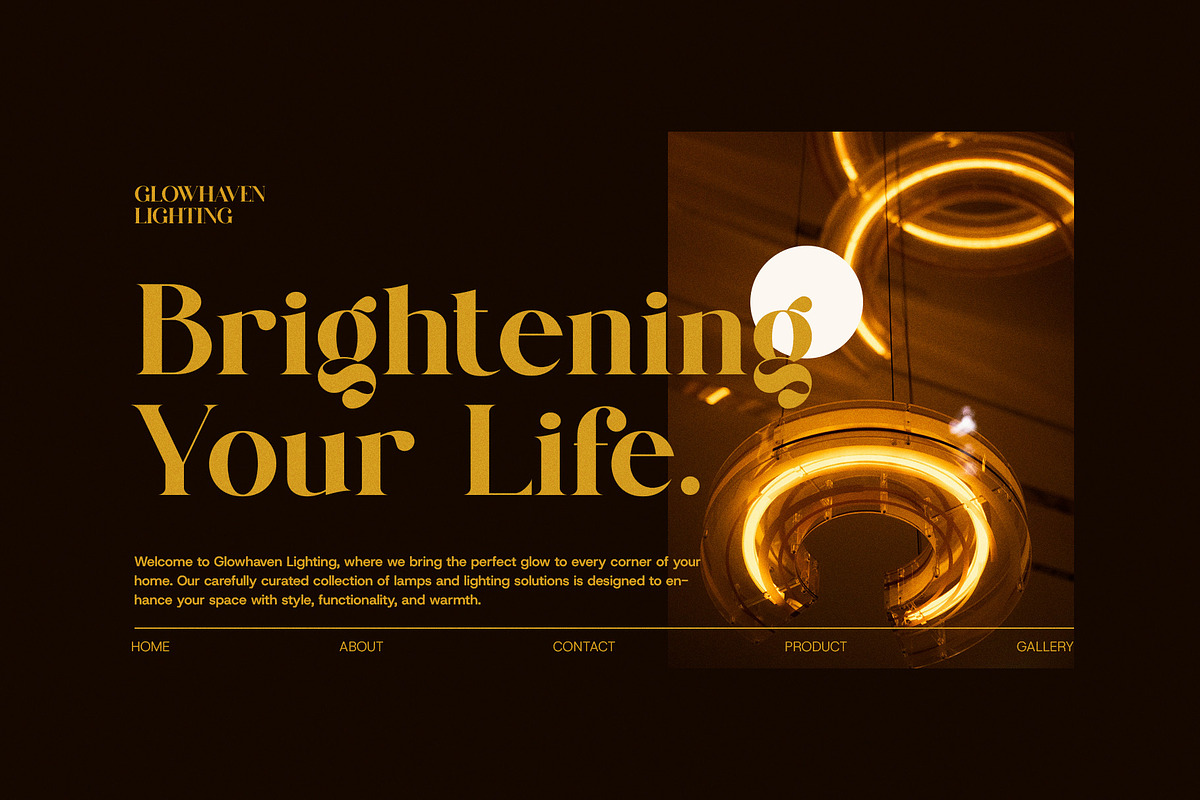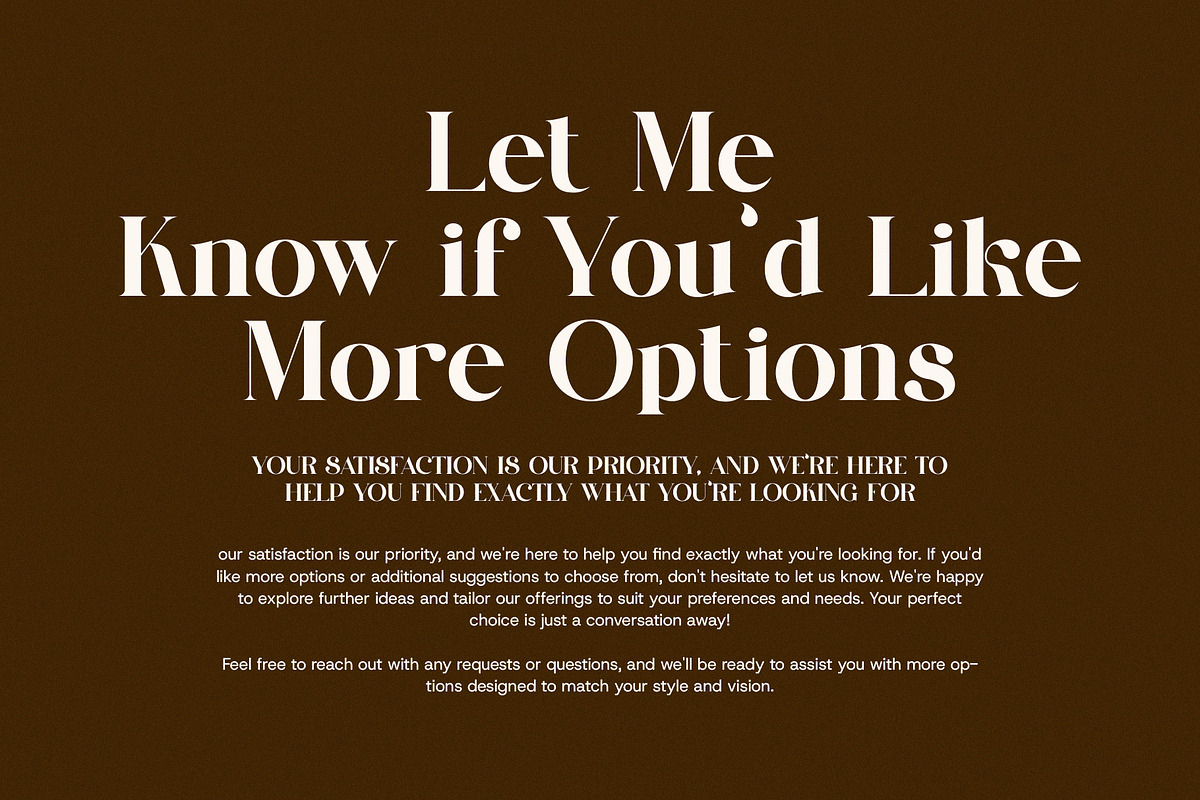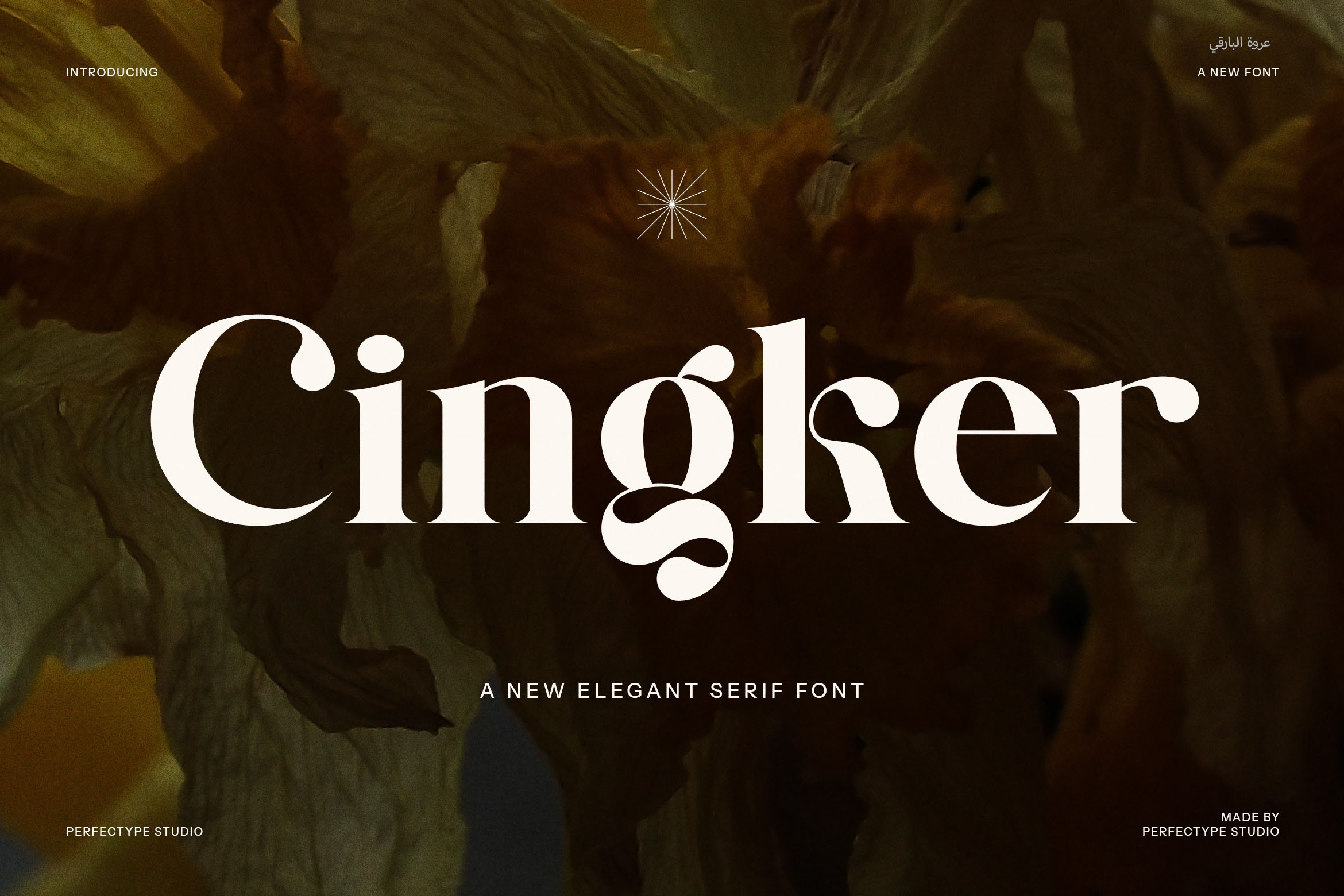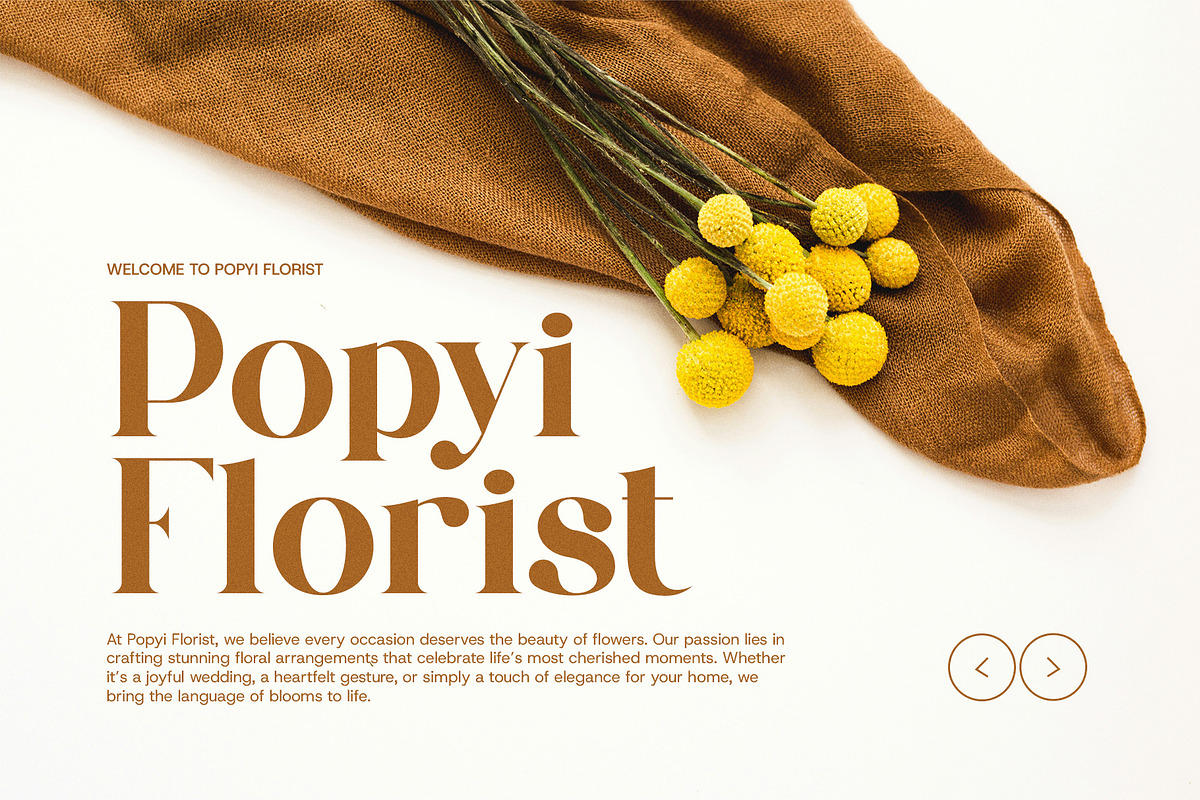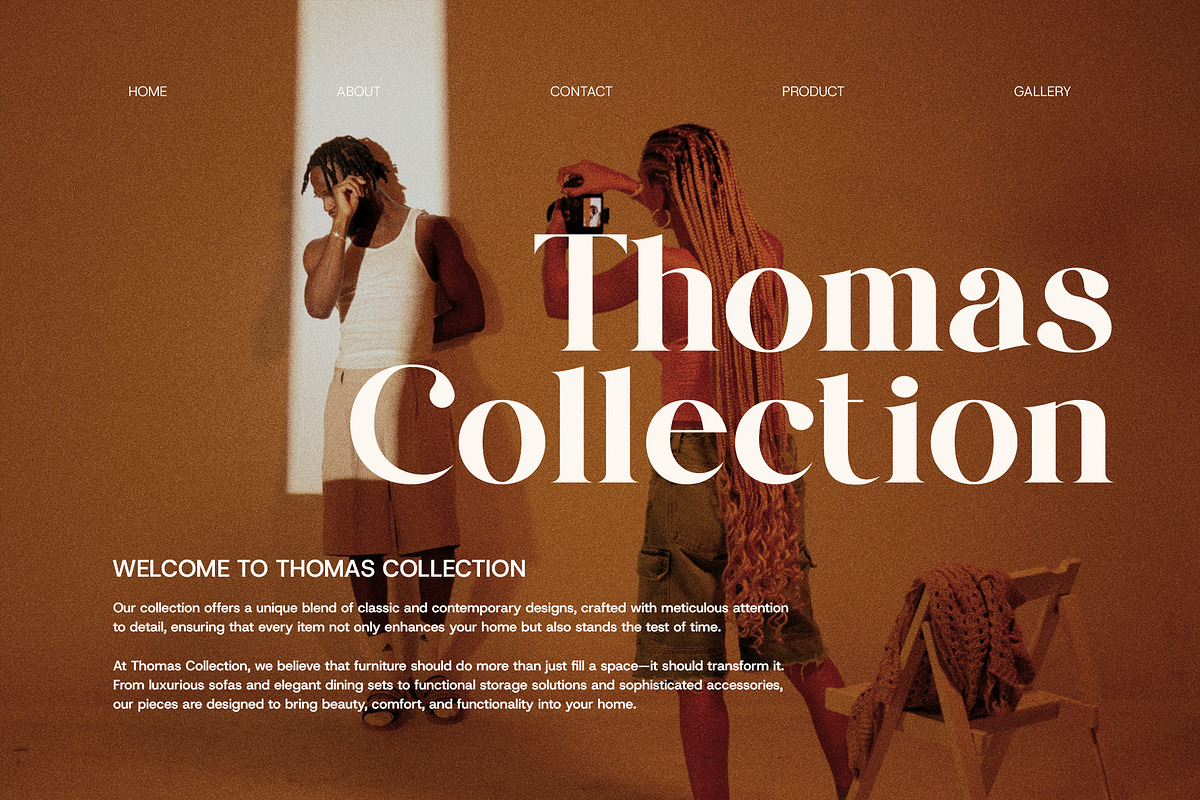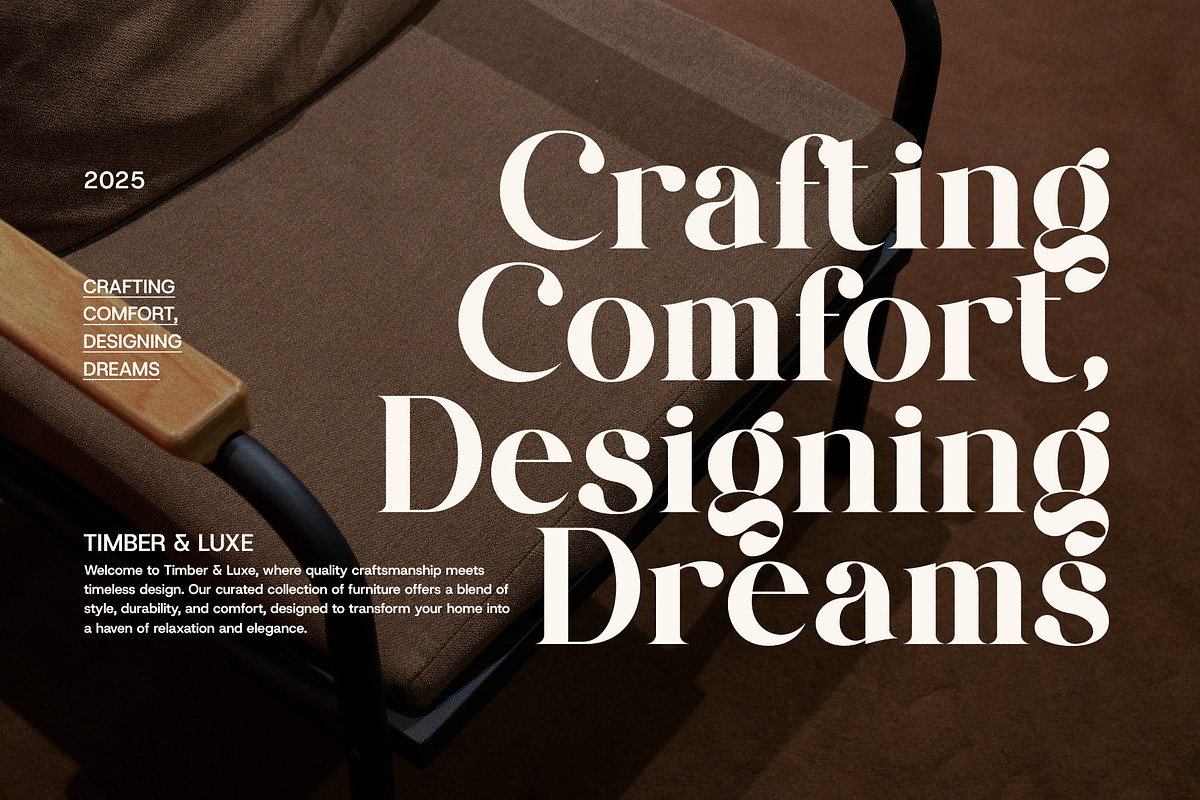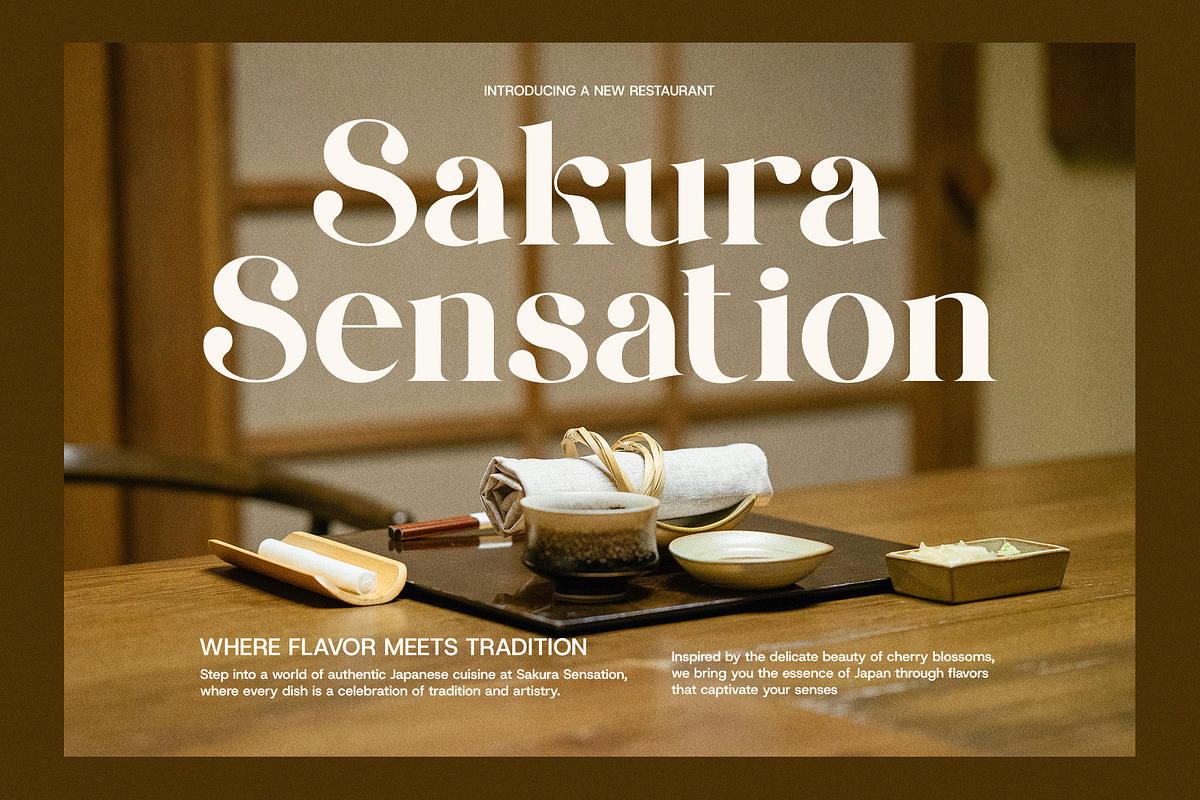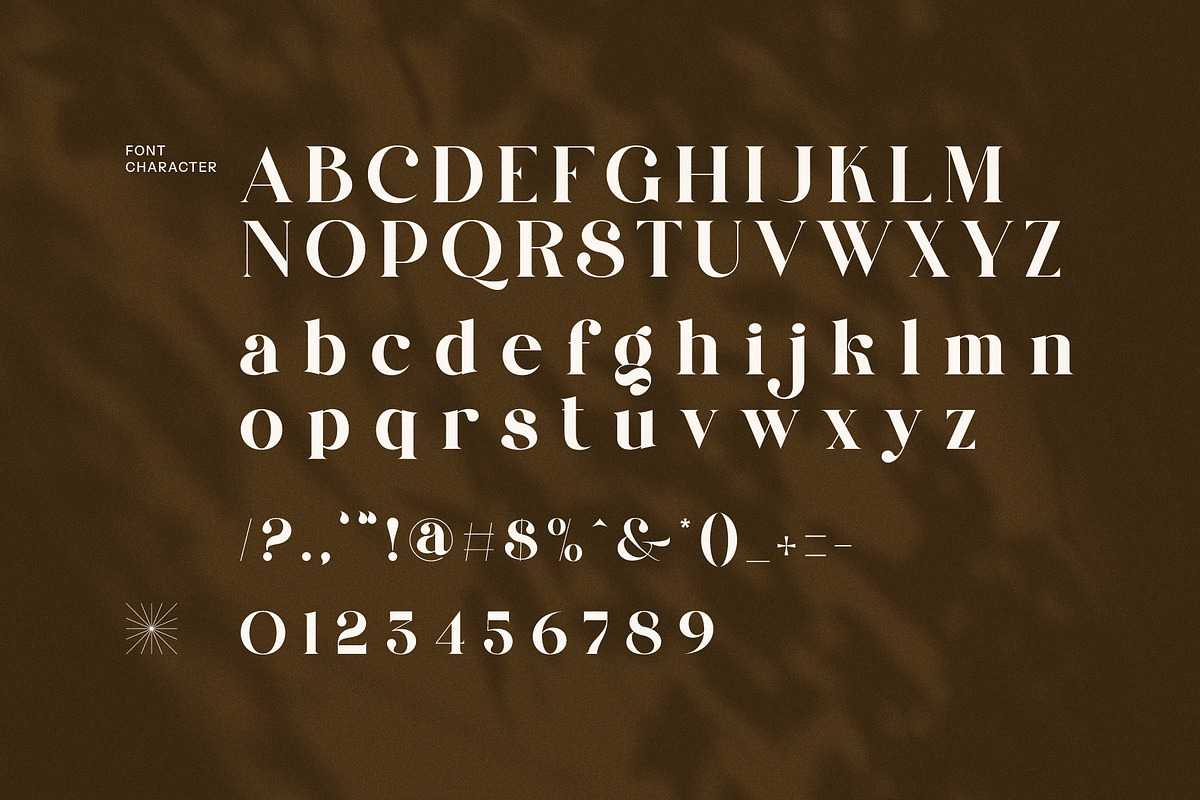
Cingker Modern Display Serif Font
Cingker Modern Display Serif Font is a captivating blend of elegance and boldness, designed to make a statement in any creative project. With its striking serifs and carefully crafted letterforms, Cingker brings a sophisticated and contemporary touch to your designs. The font's unique ligatures and alternate characters provide a distinctive, customizable flair, perfect for adding a personal touch to logos, branding, and other creative endeavors.
Whether you're designing for a high-end boutique, a modern restaurant, or a luxury product line, Cingker Modern Display Serif offers versatility and style. Its elegant design makes it ideal for eye-catching logos, premium product packaging, and impactful website headings. The font’s strong, confident presence ensures that it stands out in advertisements, magazines, and editorial layouts, while its readability ensures that smaller text remains just as sharp and polished.
Cingker’s modern aesthetic blends seamlessly into both digital and print applications, offering the perfect balance of sophistication and readability. Its refined character forms, paired with the beautifully crafted ligatures, allow for a unique and custom look, ensuring your designs stand out from the crowd. Whether you're working on a branding refresh, an advertising campaign, or a product launch, Cingker Modern Display Serif Font delivers a high-quality, stylish solution.
Elevate your design projects with Cingker—an exceptional typeface that offers a modern edge with timeless elegance. It’s the perfect choice for designers seeking a bold, sophisticated font that makes a lasting impression.